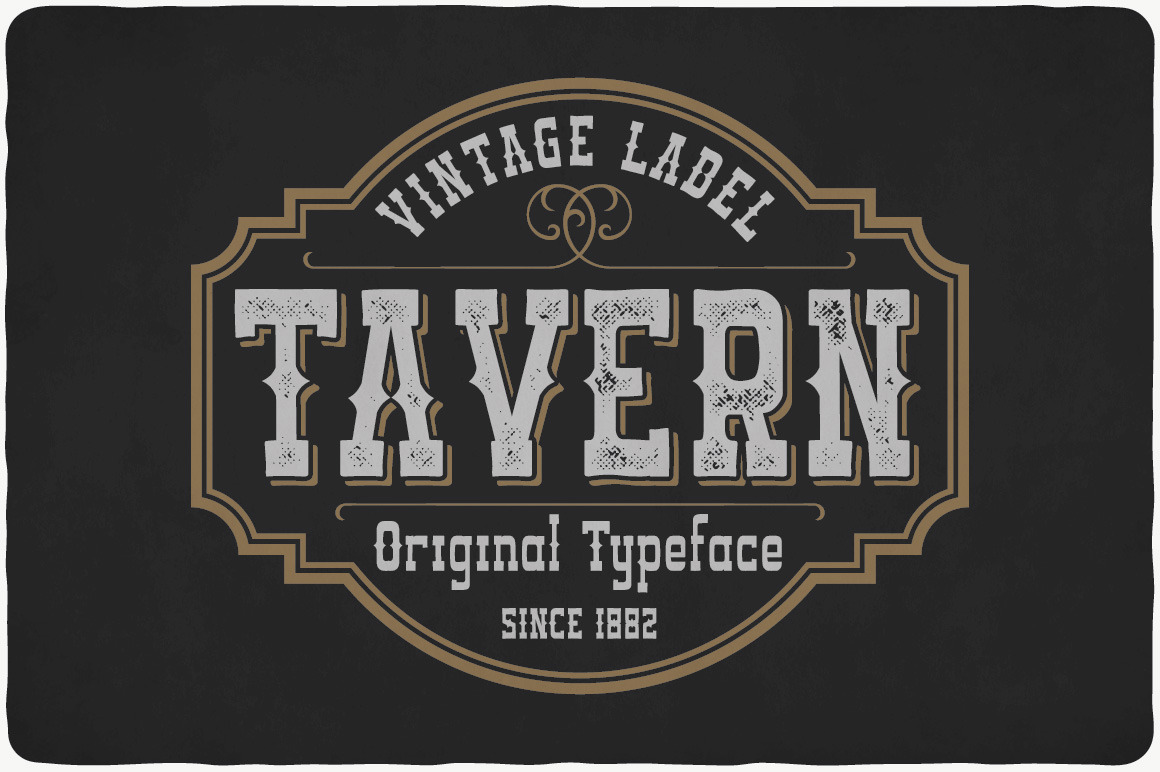
Tavern Typeface
Introducing a vintage look label typeface named "Tavern". This typeface contains layers - texture and shadow, for sample look at 4th preview. Plus aged (distressed) version. Typeface is good viewed on any yours design.